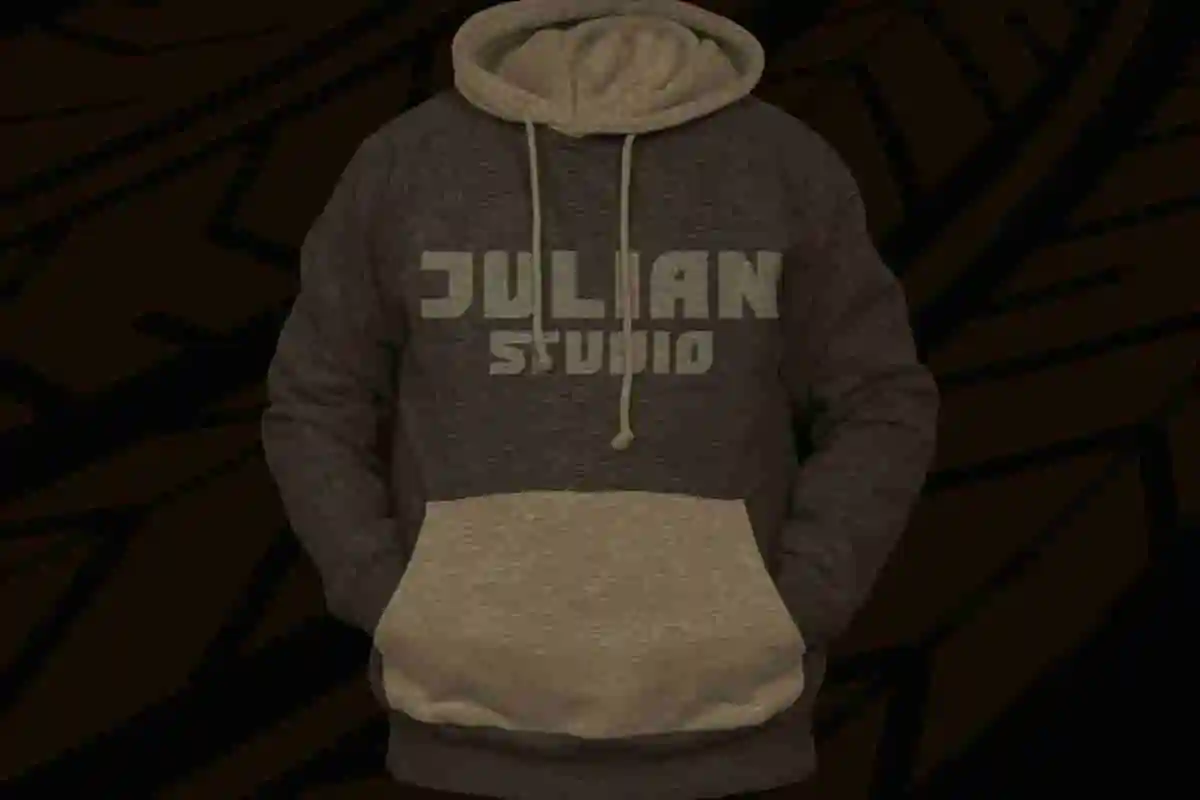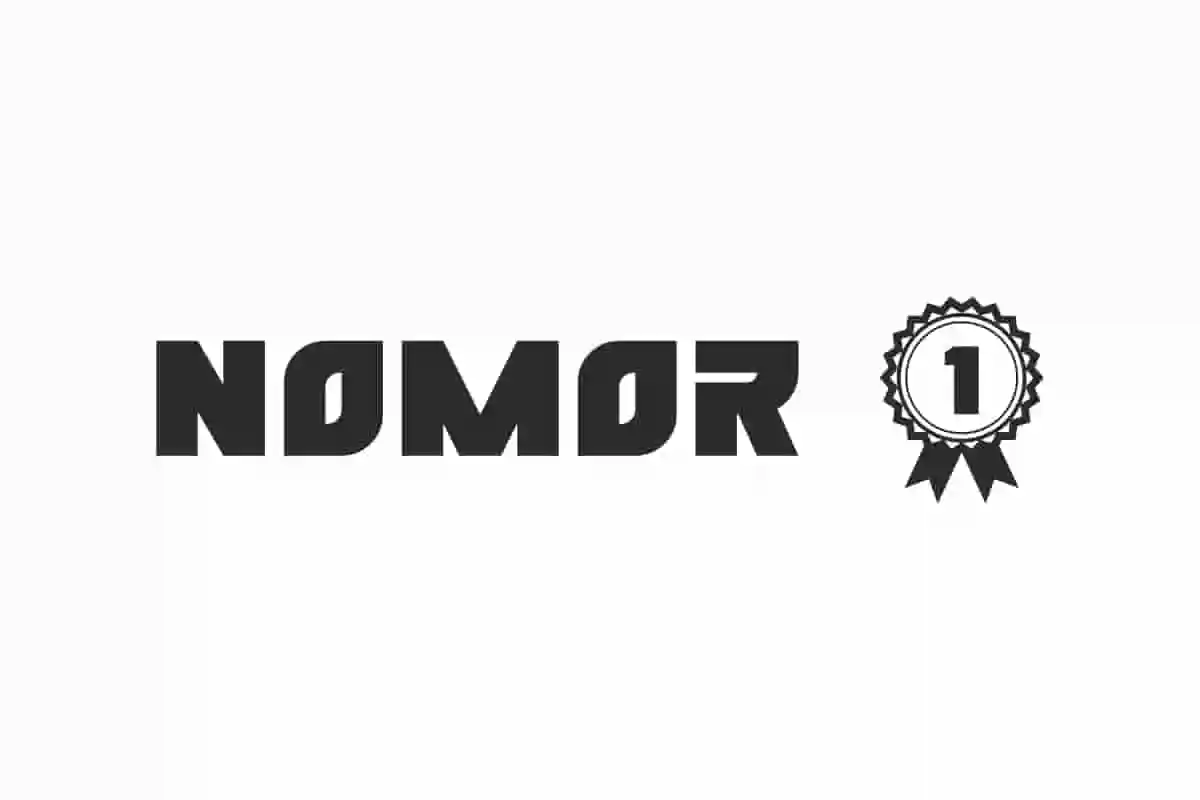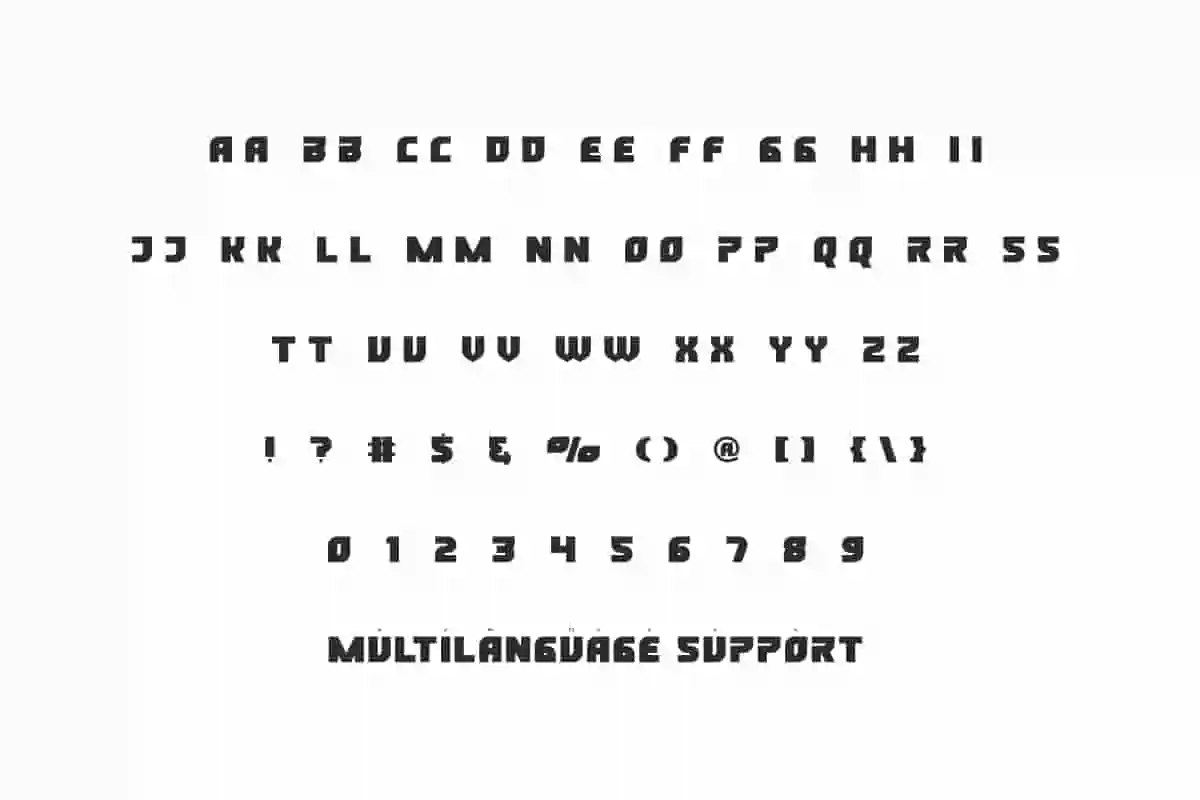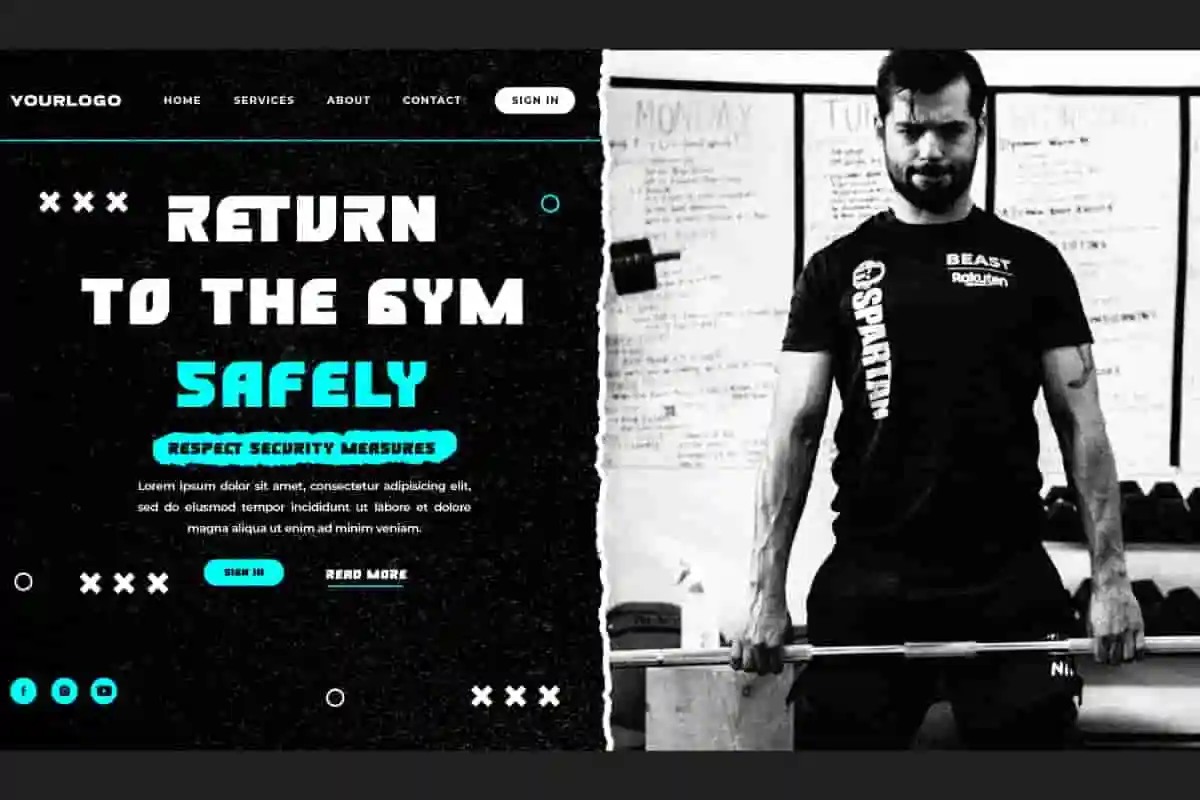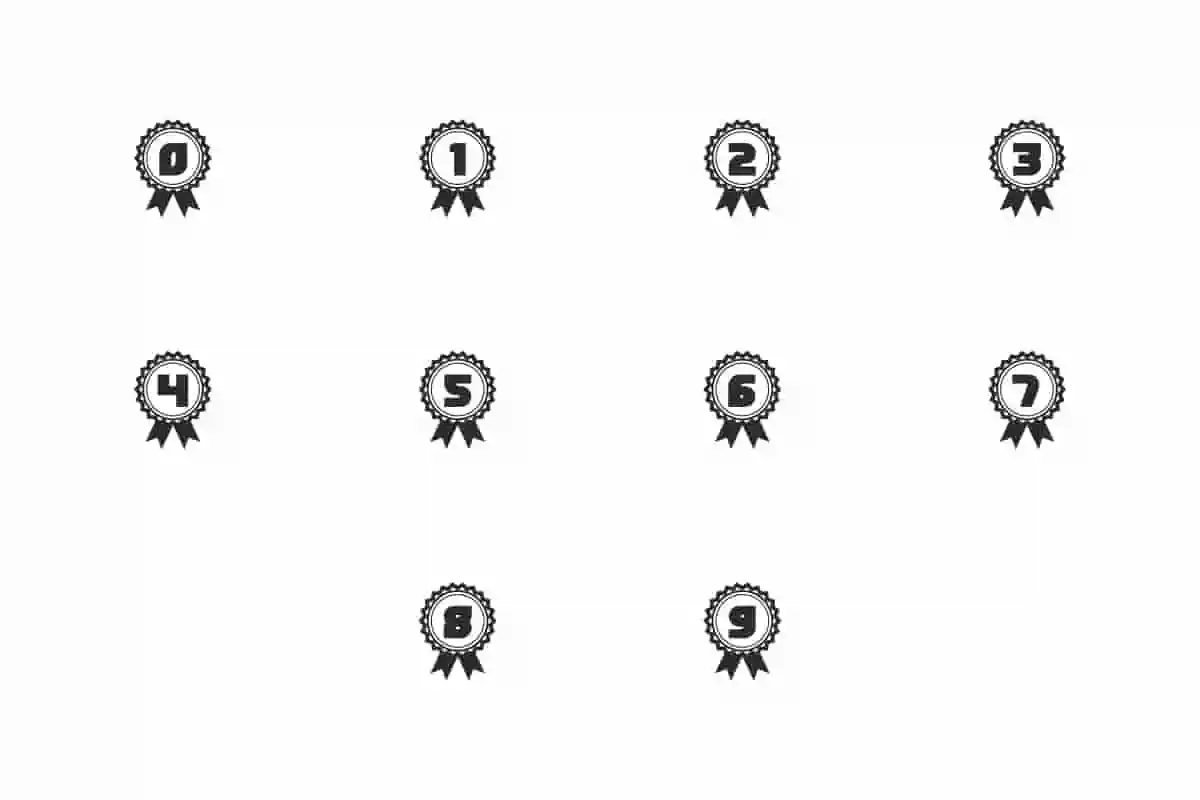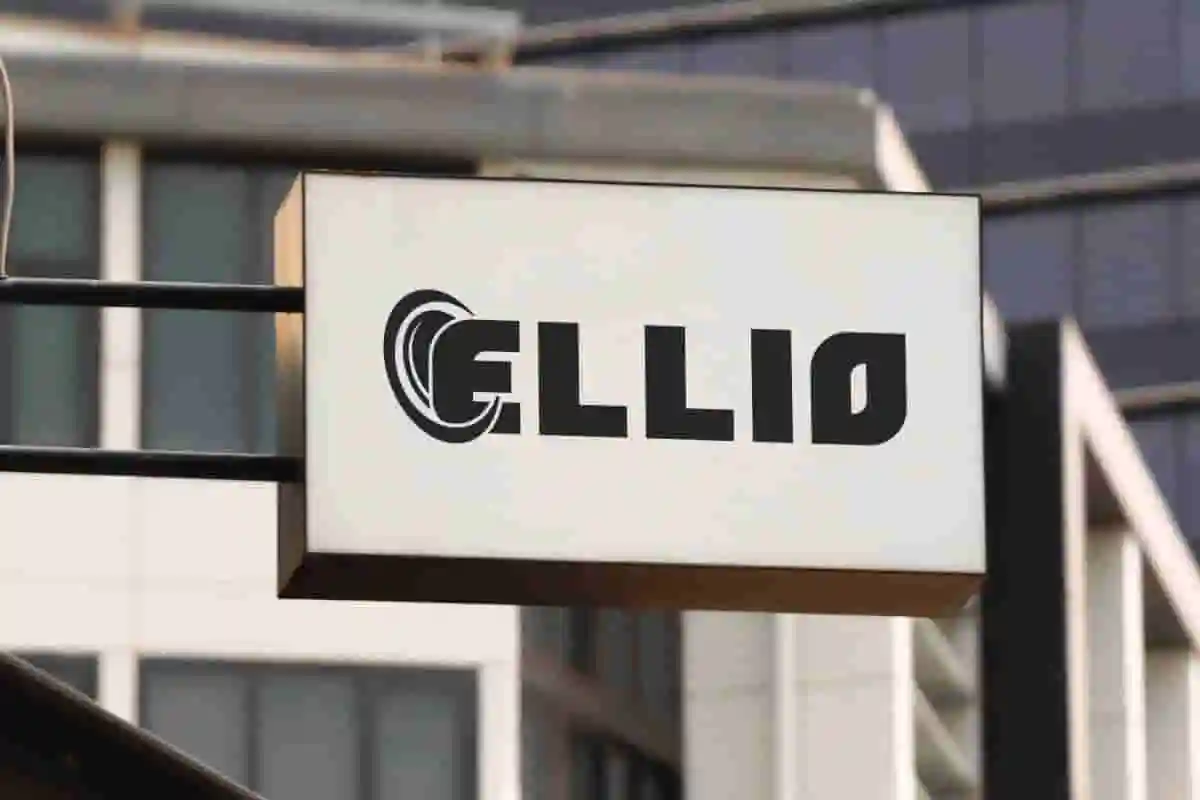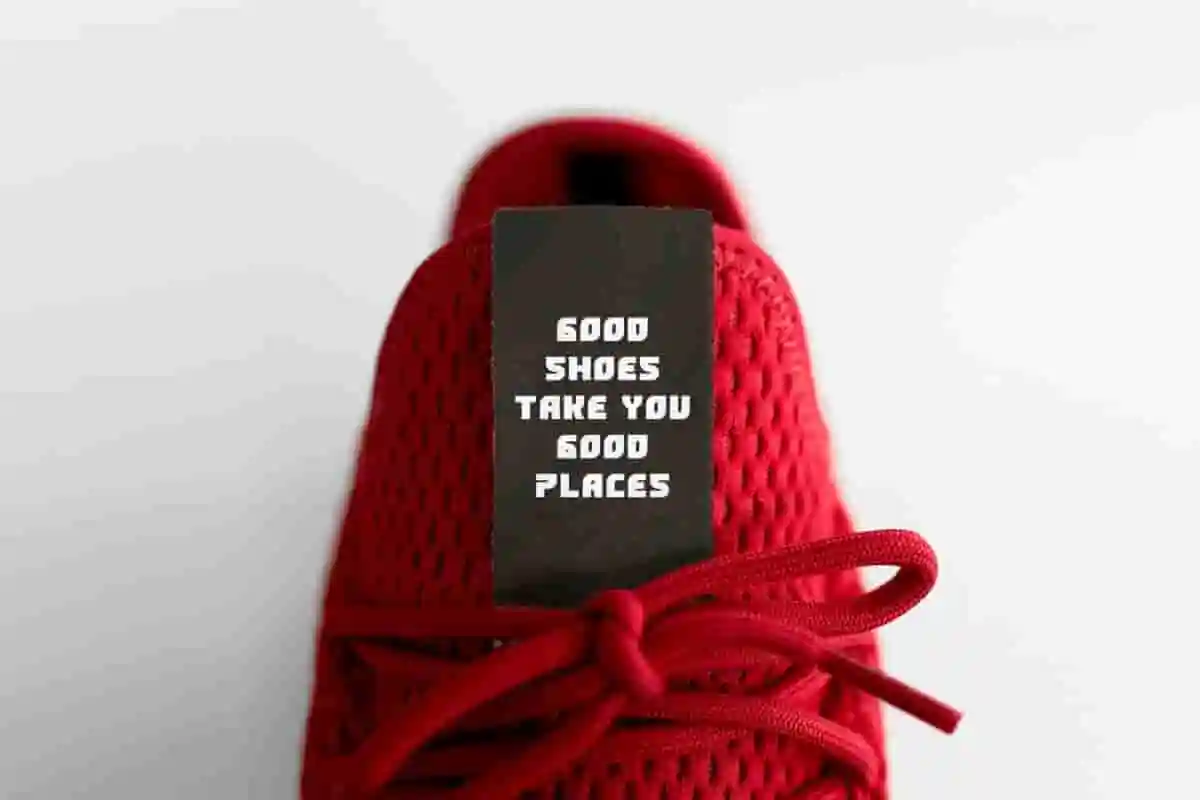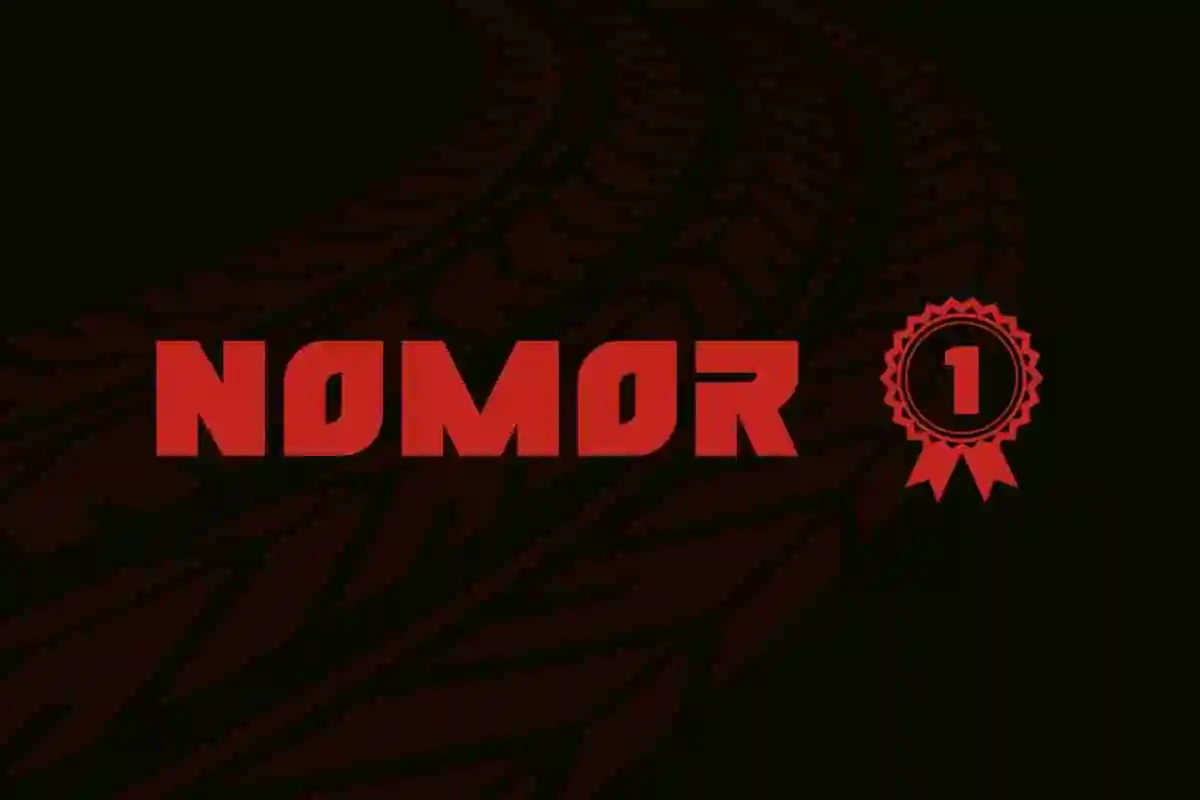
Nomor 1 Font
Nomor 1 Font is a decorative playful fun display font with boldness and unique character with alternate numbers in the award badge. The perfect choice for those who need a style that stands out from the crowd!
Nomor 1 Font is a decorative playful fun display font with boldness and unique character with alternate numbers in the award badge. This font perfect for accessories and merchandise, clothing brand, coffee shop, fashion, fitness center, graphic design, photography, racing, and much more.
Nomor 1 Font includes full set of ALL CAPS for Uppercase and Lowercase Basic Characters, Numbers, Punctuation, Symbols and Alternate numbers. This is a popular techno font choice in a championship theme, creating a visual that grabs the viewer’s attention. Perfect for apps, blogs, brochure, headers, label, mockup, poster, screen printing, stationery, template, title, website, etc.